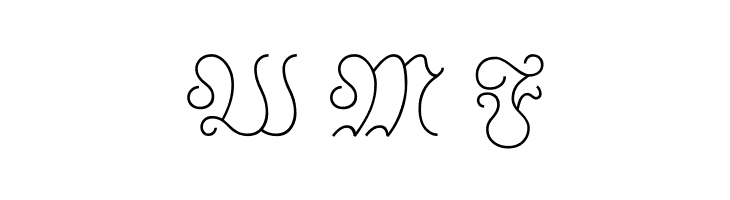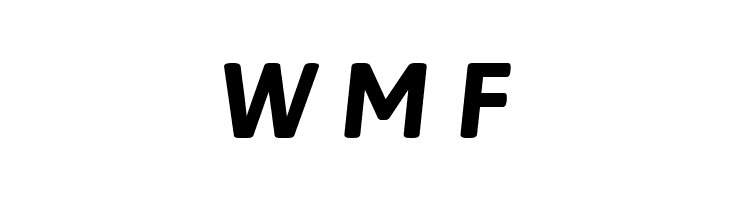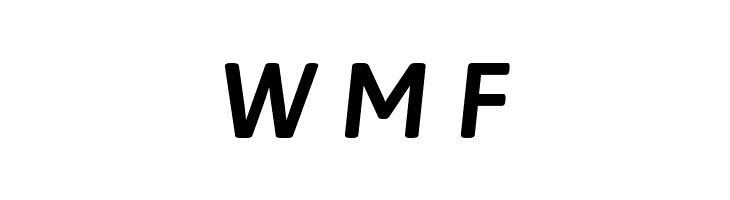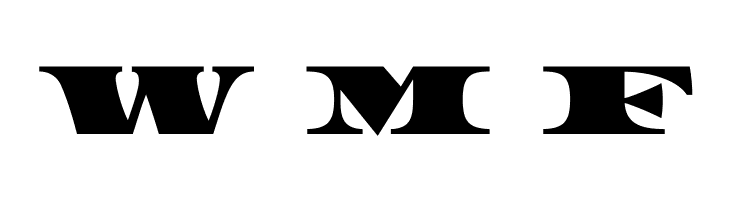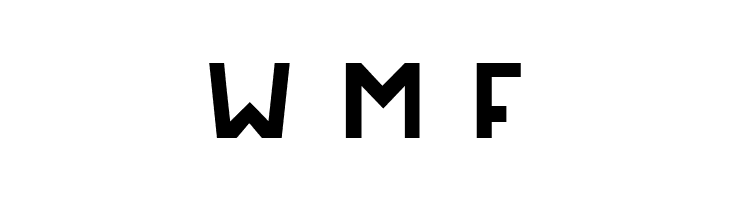
A bold, dynamic font with a futuristic and modern style.
A decorative Blackletter font with intricate, medieval-inspired design.
A playful, handwritten font with smooth, flowing lines and rounded edges.
A decorative serif font with a medieval touch and modern elegance.
A medieval-inspired uncial font with bold, angular serifs and a dynamic flow.
A bold, uncial-style font with sharp serifs and a medieval yet modern aesthetic.
A bold, italicized uncial-inspired font with a medieval and calligraphic style.
A condensed uncial-style font with a medieval yet modern aesthetic.
A bold, condensed font with medieval influences and modern readability.
A bold, italicized font with a medieval uncial influence and high contrast strokes.
A condensed, italicized font with uncial influences, blending historical and modern styles.
An italic font with a medieval, angular serif style and fluid strokes.
A lively cursive font with interconnected characters and a playful slant.
A casual, elegant handwritten font with smooth curves and a slight slant.
A bold, distressed font with a grunge aesthetic, featuring unique textures and edgy details.
A dynamic, expressive handwritten font with irregular, spontaneous strokes.
A lively and elegant script font with flowing, cursive letters.
A lively and elegant script font with fluid, cursive strokes.
A lively, elegant script font with bold, flowing cursive letterforms.
A casual, handwritten font with a natural flow and dynamic strokes.
A sleek, modern font with thin, elongated characters and a minimalist design.